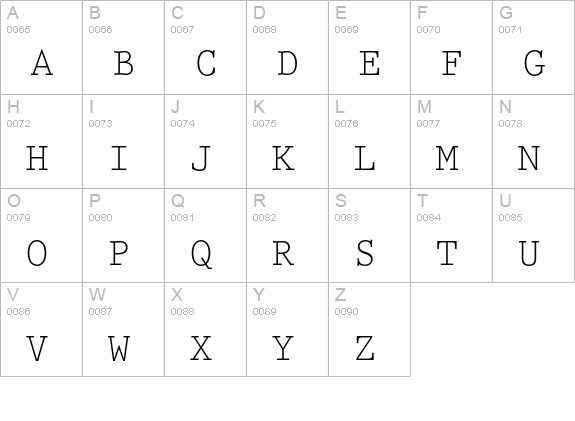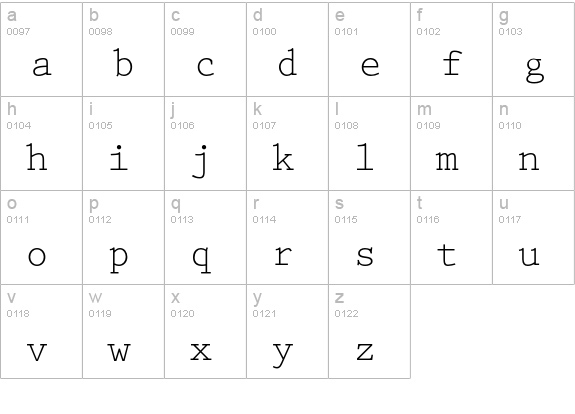
Prestige Elite Font Details
Prestige Elite is a timeless and sophisticated font that exudes elegance and professionalism. Its clean lines and classic design make it perfect for a wide range of projects, from business documents to creative designs. With its striking appearance and versatility, Prestige Elite is sure to make a bold statement and leave a lasting impression. The best part is that Prestige Elite is available for free download at FontsMarket.com. This means you can easily access this premium font without any cost, making it a valuable addition to your font collection. Whether you're a designer looking to enhance your projects or a business professional in need of a polished font for your communications, Prestige Elite is the perfect choice. Download it today and elevate your designs with this exquisite typeface.